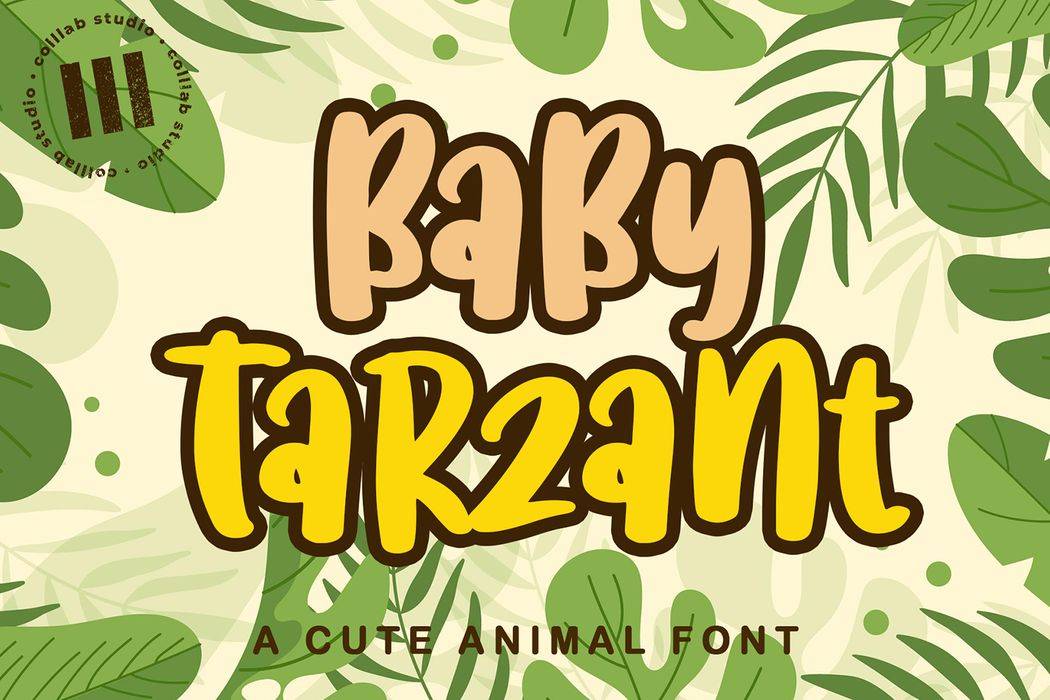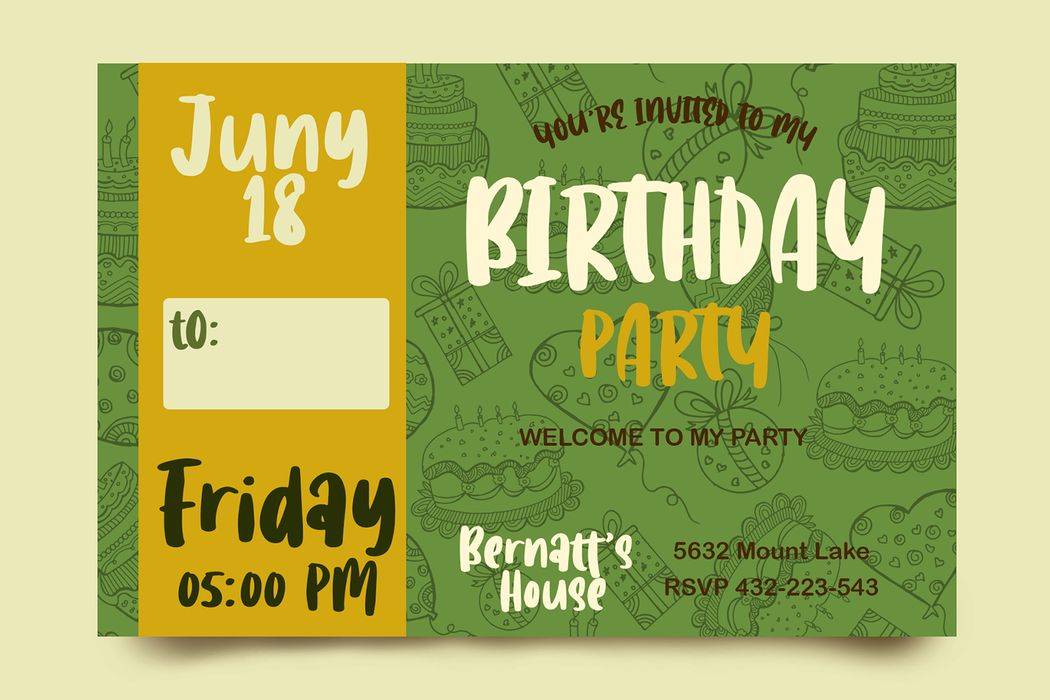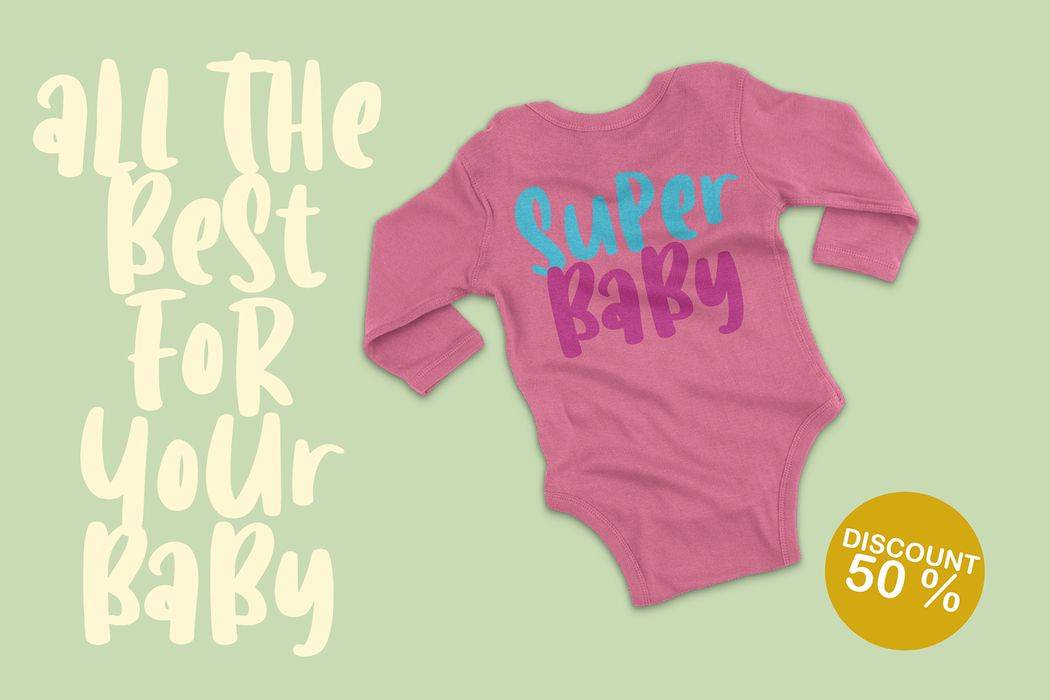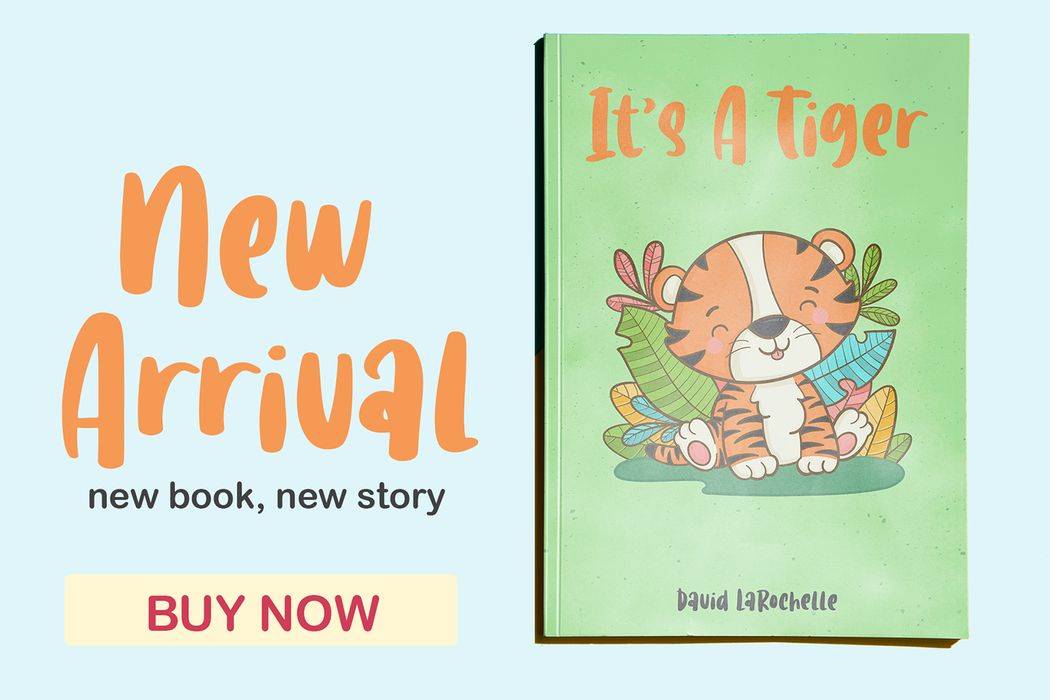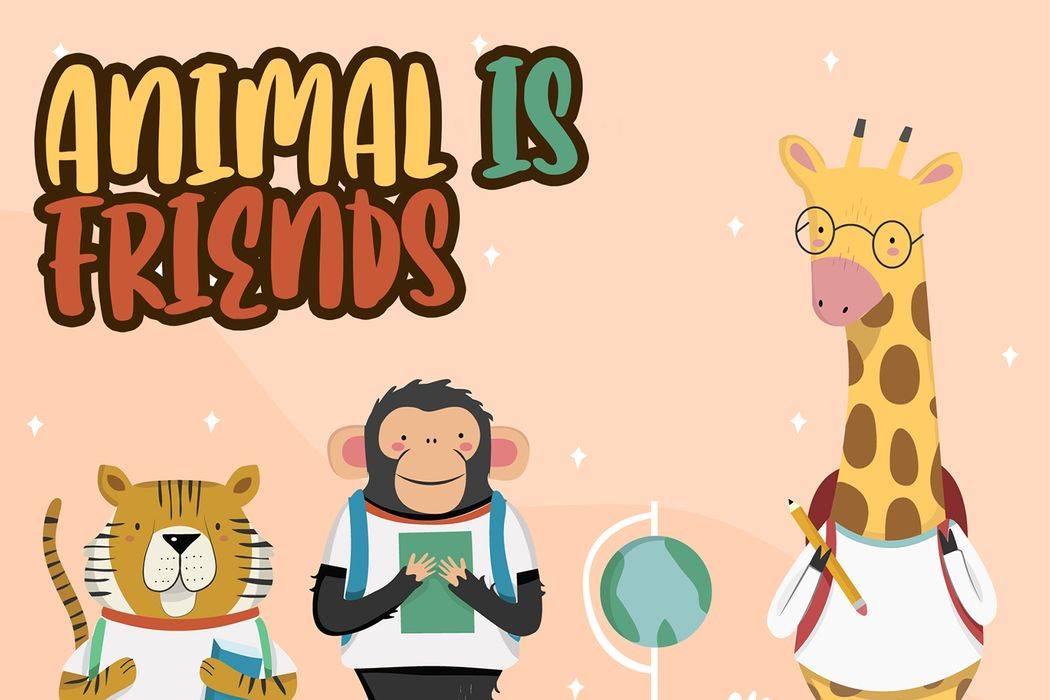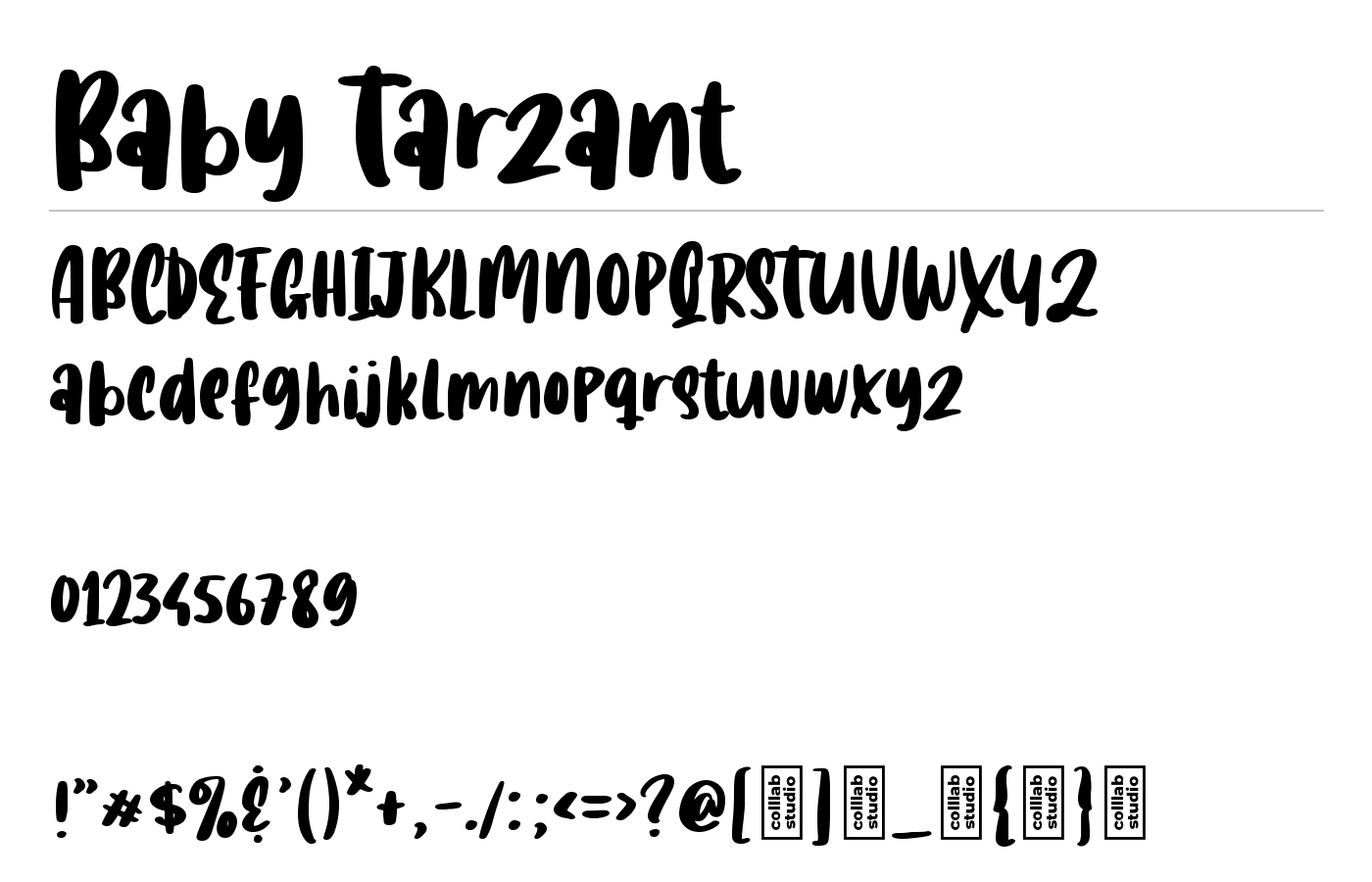
Baby Tarzant is a bold, playful handwritten font with a casual and friendly vibe. Its thick, rounded strokes and quirky letter shapes make it perfect for child-focused designs, fun branding, and informal projects where personality and warmth are key. This font works well in logos, posters, and packaging that aim to feel approachable and energetic.
Baby Tarzant Font
About Baby Tarzant Font
| Font family | Baby Tarzant Font |
| Designer | Colllab Studio |